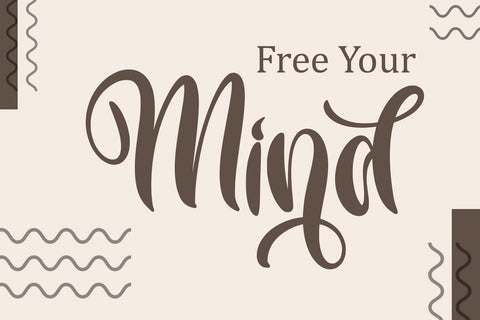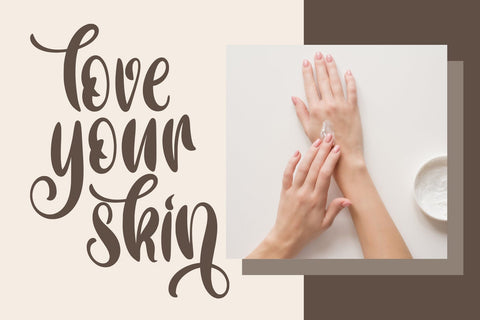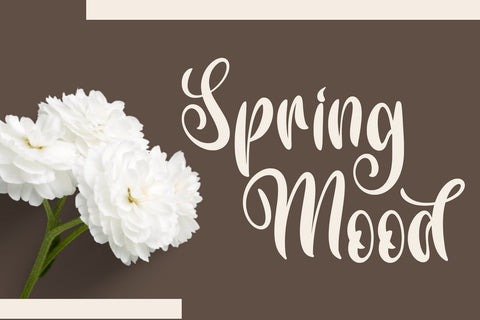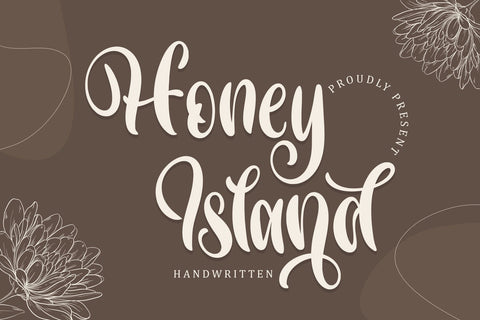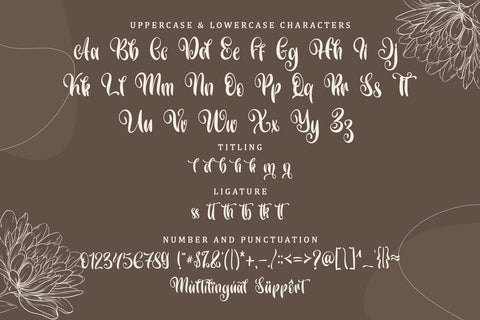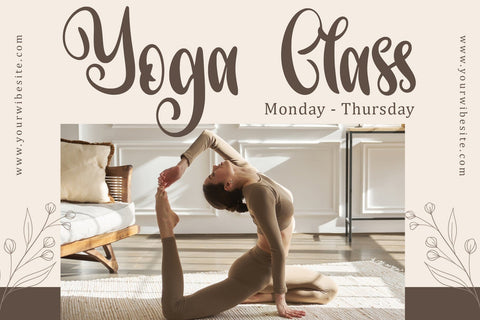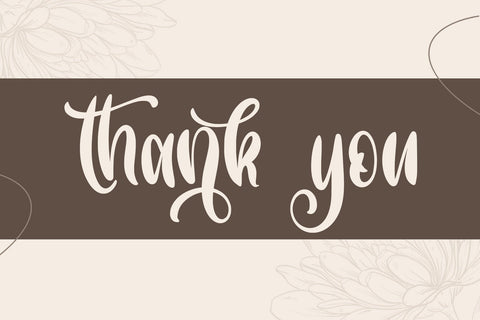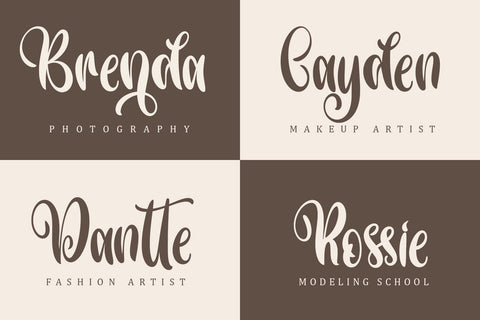
Honey Island
Honey Island is an exquisite handwritten font, masterfully designed to become a true favorite. It maintains its classy calligraphic influences while feeling contemporary and fresh. Fall in love with it and bring your projects to the! highest levels